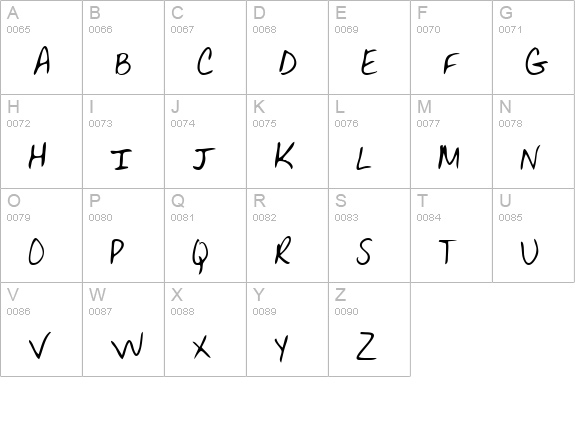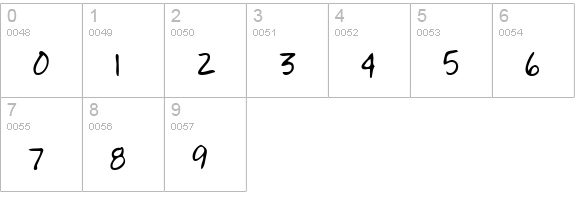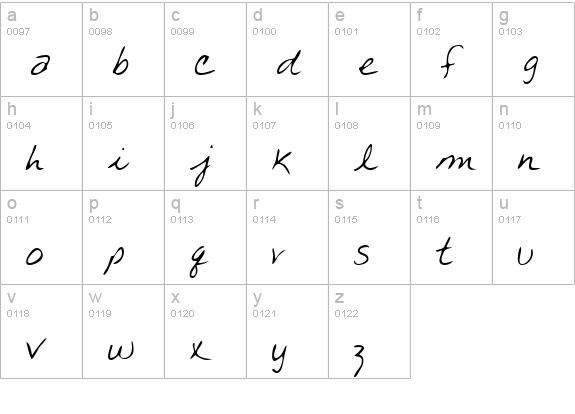
TanyasHand Regular Font Details
TanyasHand Regular is the standard, neutral variant in the TanyasHand typeface family \xE2\x80\x94 well suited to general body text, paragraphs, and standard typographic work.
TanyasHand Regular font is a unique and stylish typeface that brings a touch of elegance and sophistication to any design project. With its delicate curves and flowing lines, this font captures the essence of hand-drawn calligraphy, adding a personal and artistic touch to your work. Whether you're designing a wedding invitation, creating a brand logo, or simply adding a touch of charm to your personal blog, TanyasHand Regular font is the perfect choice. Its versatility allows it to be used for both headings and body text, ensuring a cohesive and visually appealing design. What makes TanyasHand Regular font even more remarkable is that it is completely free to download at FontsMarket.com. Yes, you read that right - this stunning font is freely available, allowing you to bring a touch of elegance to your designs without breaking the bank. So why wait? Download TanyasHand Regular font today and let your creativity soar. Whether you're a professional designer or an enthusiastic hobbyist, this font is sure to become a staple in your font library. Embrace the charm and beauty of TanyasHand Regular font and elevate your designs to new heights.